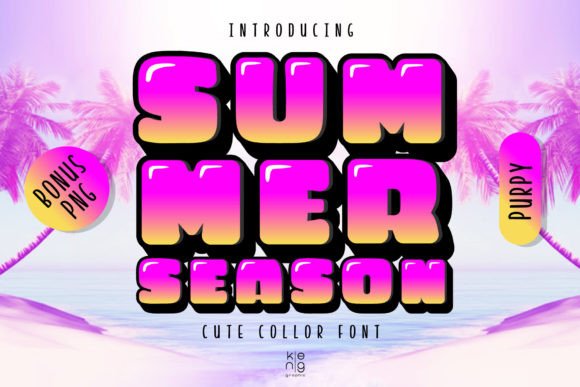
In a world brimming with monotonous fonts, Summer Season Purpy Font bursts forth, a refreshing burst of color and creativity. This font family, a masterpiece crafted by keng graphic, is not just a collection of letters; it's an explosion of personality, a vivid expression of individuality.
With its vibrant hues and playful curves, Summer Season Purpy Font is a feast for the eyes. Each character dances across the screen, brimming with life and energy. It's a font that demands attention, captivating audiences with its irresistible charm. Whether you're a seasoned designer or a novice just starting out, this font will unleash your creativity, propelling your designs to new heights.
Imagine your invitations adorned with the playful strokes of Summer Season Purpy Font. The name of your special event will leap off the page, inviting guests to embark on a journey of joy and celebration. This font has a magical ability to transform ordinary words into extraordinary statements, leaving a lasting impression on the hearts of your loved ones.
The versatility of Summer Season Purpy Font is truly remarkable. Its diverse range of applications knows no bounds. Unleash your imagination and let this font work its magic on comic book layouts, online games, cards, shirts, hats, bags, mugs, posters, movie titles, and social media posts. Wherever you choose to use it, Summer Season Purpy Font will leave an indelible mark, captivating audiences with its infectious energy and undeniable charm.
But Summer Season Purpy Font is more than just a collection of characters; it's an embodiment of youth and courage. It's a font that speaks to the adventurous spirit within us, inspiring us to embrace our individuality and make our mark on the world. With Summer Season Purpy Font, you'll conquer new frontiers, leaving a dazzling trail of creativity in your wake.
So, embark on this extraordinary journey today, and let Summer Season Purpy Font ignite your imagination. Its vibrant colors and captivating charm will transform your designs, leaving audiences mesmerized. The time is now; let your creativity soar with Summer Season Purpy Font.